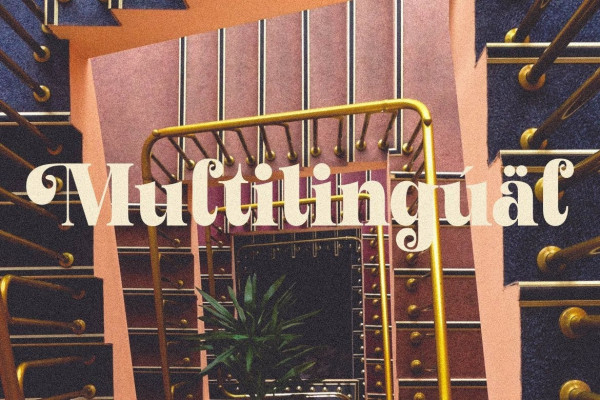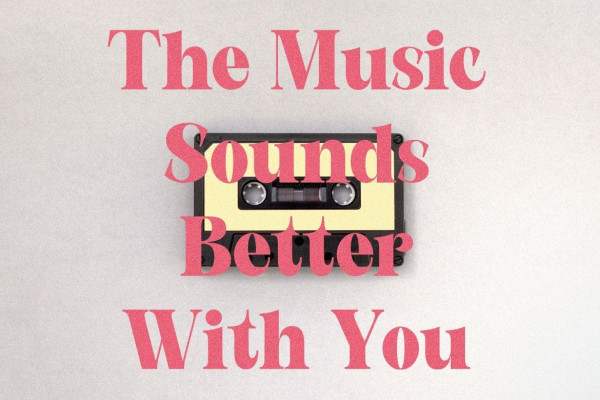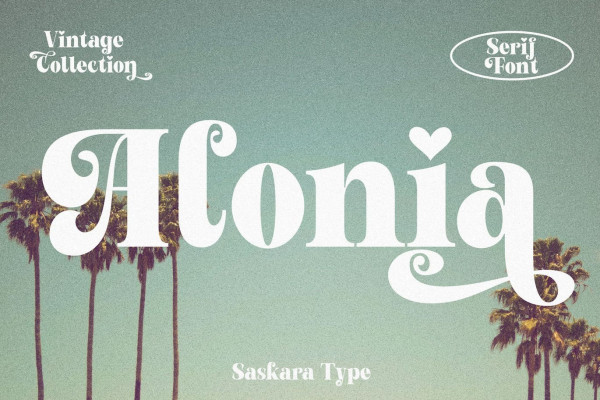
Alonia Font
Alonia Font is an elegant and unique serif font with an interesting and vibrant vintage feel. This font is suitable for printing logos, labels, brochures, signatures, handmade brands, anything modern style, vintage style, etc.